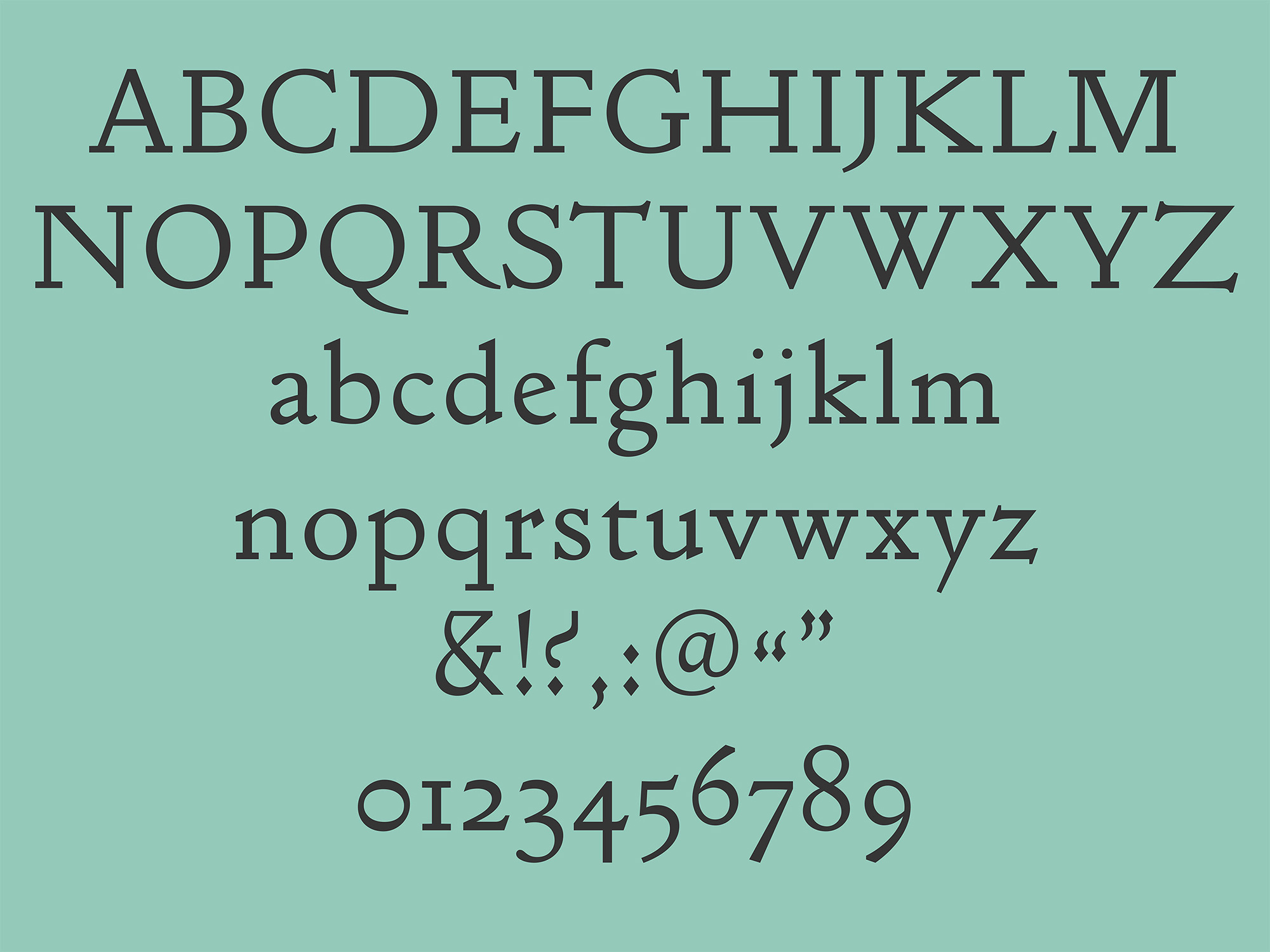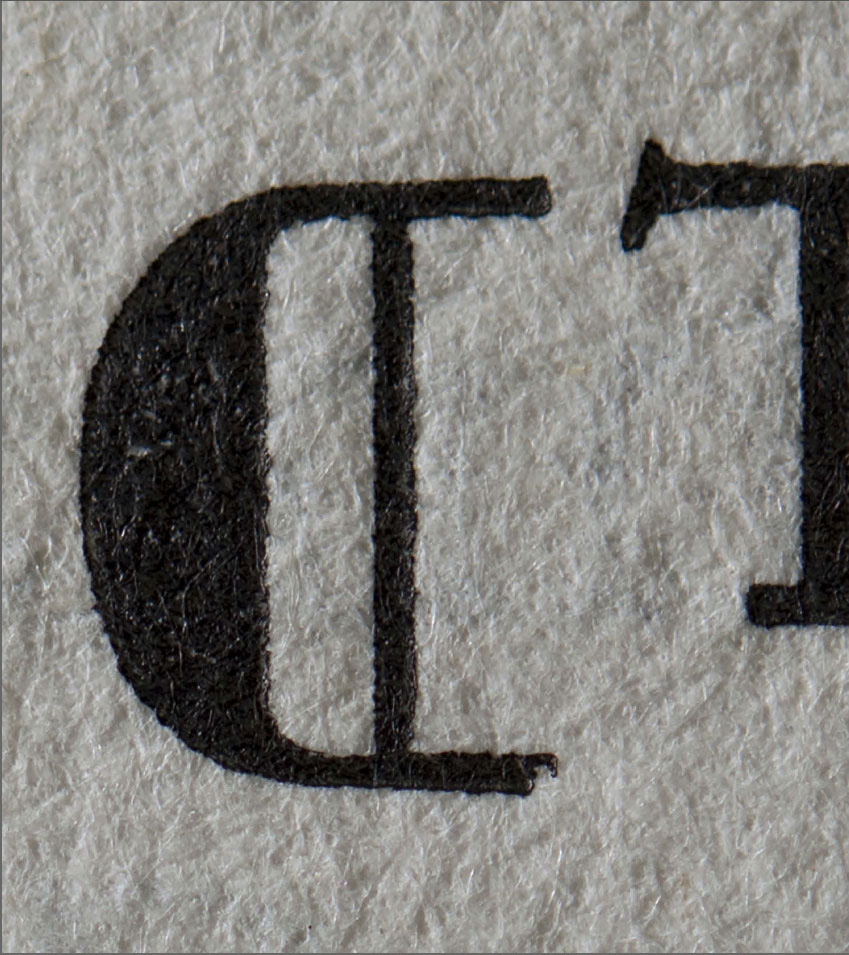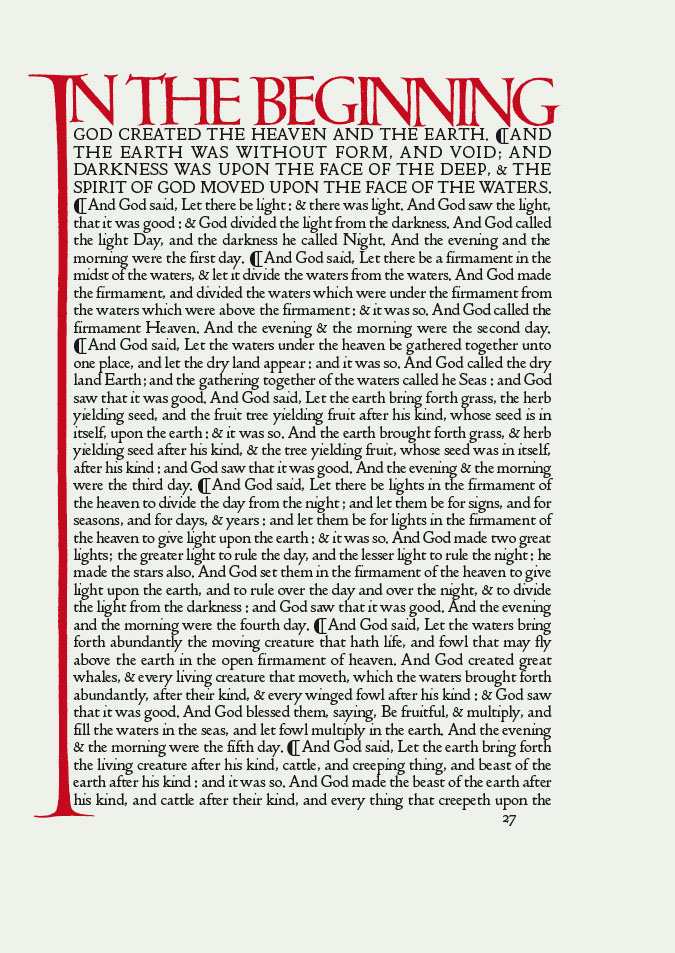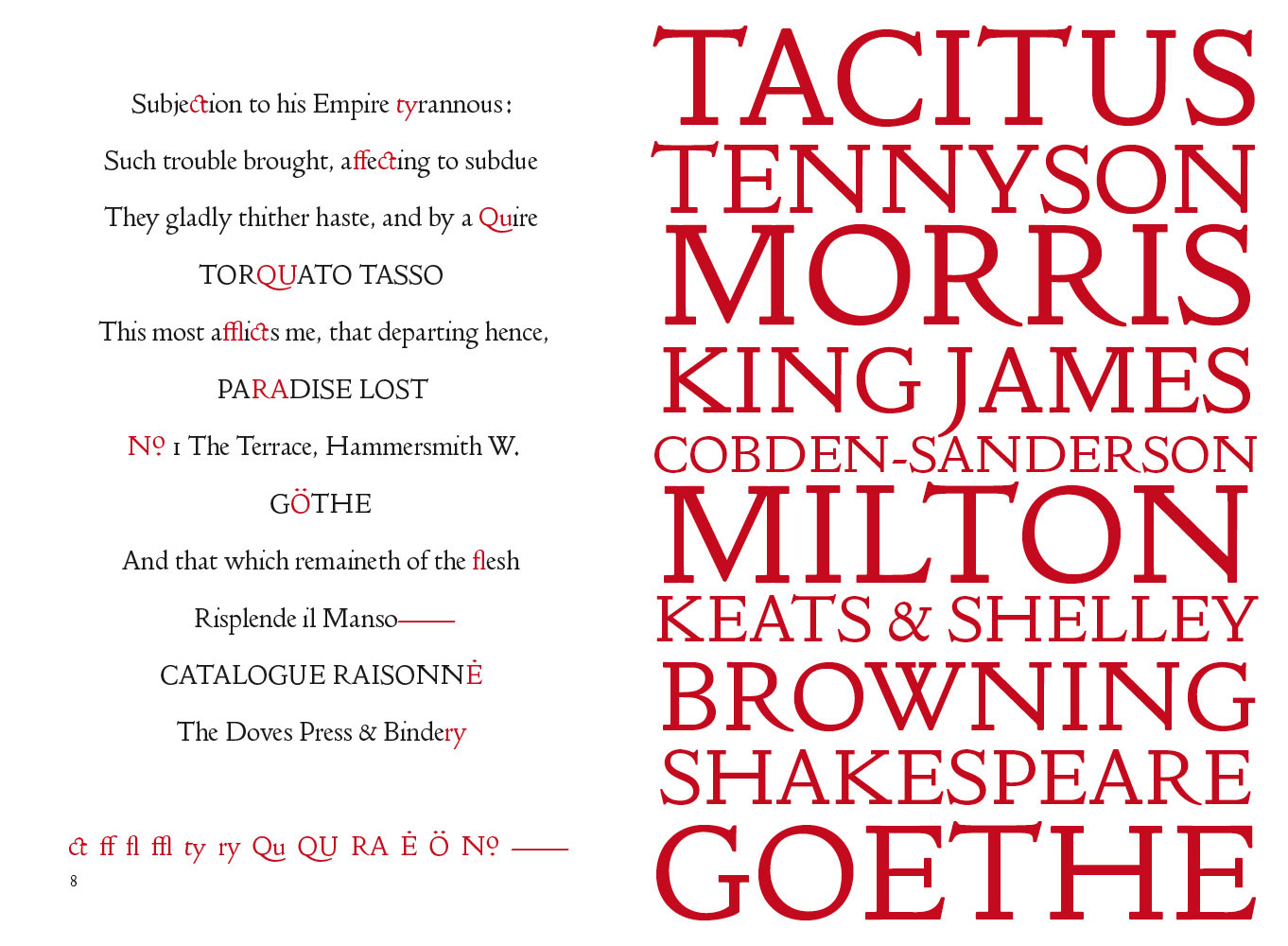
Gaël Faure and Raphaël Verona Swiss reinvention of Doves Type
It’s not often a font gets celebrity status, but the Doves typeface has certainly achieved world-wide notoriety due the shenanigans surrounding its loss and recent rediscovery” wrote the iconic graphic designer Graham McCallum some months ago. “In an almost Gothic tale involving a rights feud between the Hammersmith based printers T.J. Cobden-Sanderson and his partner Emery Walker, the original matrices were nocturnally cast into the Thames between 1916 and 1917 by Cobden-Sanderson” he added. After last November, when, with the help of divers from Port of London Authority, designer Robert Green managed to recover 150 original metal letterpress blocks updating a digital facsimile of the typeface he had first issued in 2013 so that Doves Type could live on, lots have happened. The world of typography used this available to use digital facsimile of the Doves Type as inspiration for their own versions, paying tribute to the feud, and one such version is Thames Capsule.
“Green’s Doves Type restoration is apparently based on the Doves Letterpress appearance once printed: rounded terminations and rounded junctions, among other details” says co-founder of studio Faure & Verona, Raphaël Verona. Based in Lausanne, Switzerland, he and his partner in crime Gaël Faure, in an effort to “enhance the Art & Craft qualities of the original letterpress, to develop each letter specificities instead of standardise its shapes”. By adding “wood-cut like details that match with the intentions we alleged to Emery Walker” the duo honor the font's early 20th-century character. “Our idea was to give this typeface a contemporary flavor, not a romantic one because we were convinced that its humanistic-based shapes could be merged together with contemporary details” says Raphaël on their updated version of Doves Type. “I hope that the platform we created for the typeface illustrates enough our intentions to create an atmosphere around the font: to link together its history and its contemporary design aspects. More than a simple typeface, we wanted to sell its history.”
A tale that started back in 1990, when T.J. Cobden-Sanderson asked Emery Walker to join his private press, based in Hammersmith. The Press was considered to be a significant contributor to the Arts and Crafts movement, with the founders associated with the likes of William Morris. But things took a turn in 1909, with the two founders in dispute and the partnership on the brink of dissolution.
“We created an atmosphere around the font: to link together its history and its contemporary design aspects. We wanted to sell its history”
The Doves Type matrices were destroyed by Cobden-Sanderson in March 1913, when he threw them into the Thames from Hammersmith Bridge. He then began to destroy the types, which took him until January 1917, after 170 trips to the river. Fast-forward to 2015, these curves still have a lot to say. For more background about Doves Type check out this BBC News report where Tom Beal met Robert Green and talked to him about the origins of his obsession to bring back from oblivion a lost type from its watery resting place.